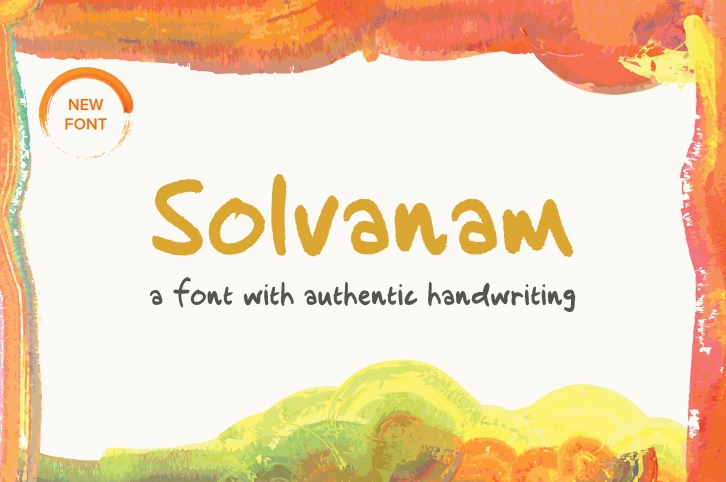
Solvanam is a great font that was designed by Niram Factory. Imagine the amount of combinations you can create using this font! The archive is 21.63 MB and it was released on January 10, 2017. Solvanam looks beautiful on wedding invitations, greeting cards, logos, posters, labels, t-shirt designs, logos, business cards and is perfect for use in ink or watercolor works, fashion, magazines, packaging and food menus, children's books and more!